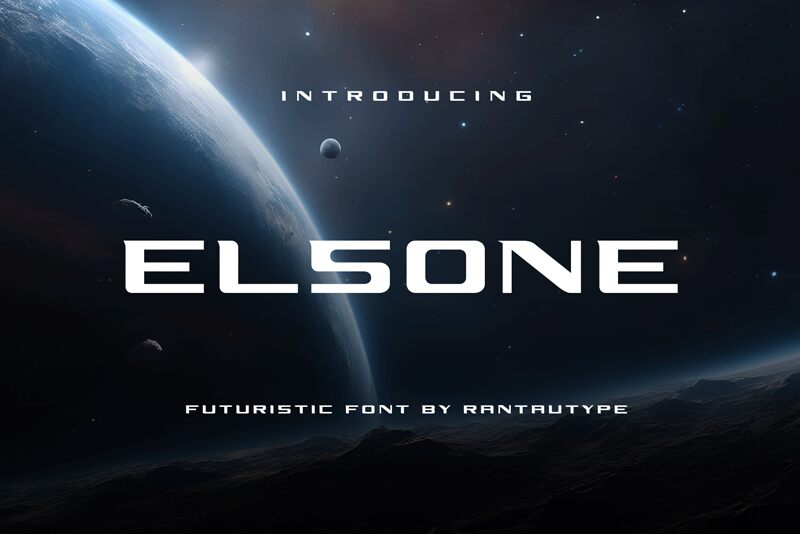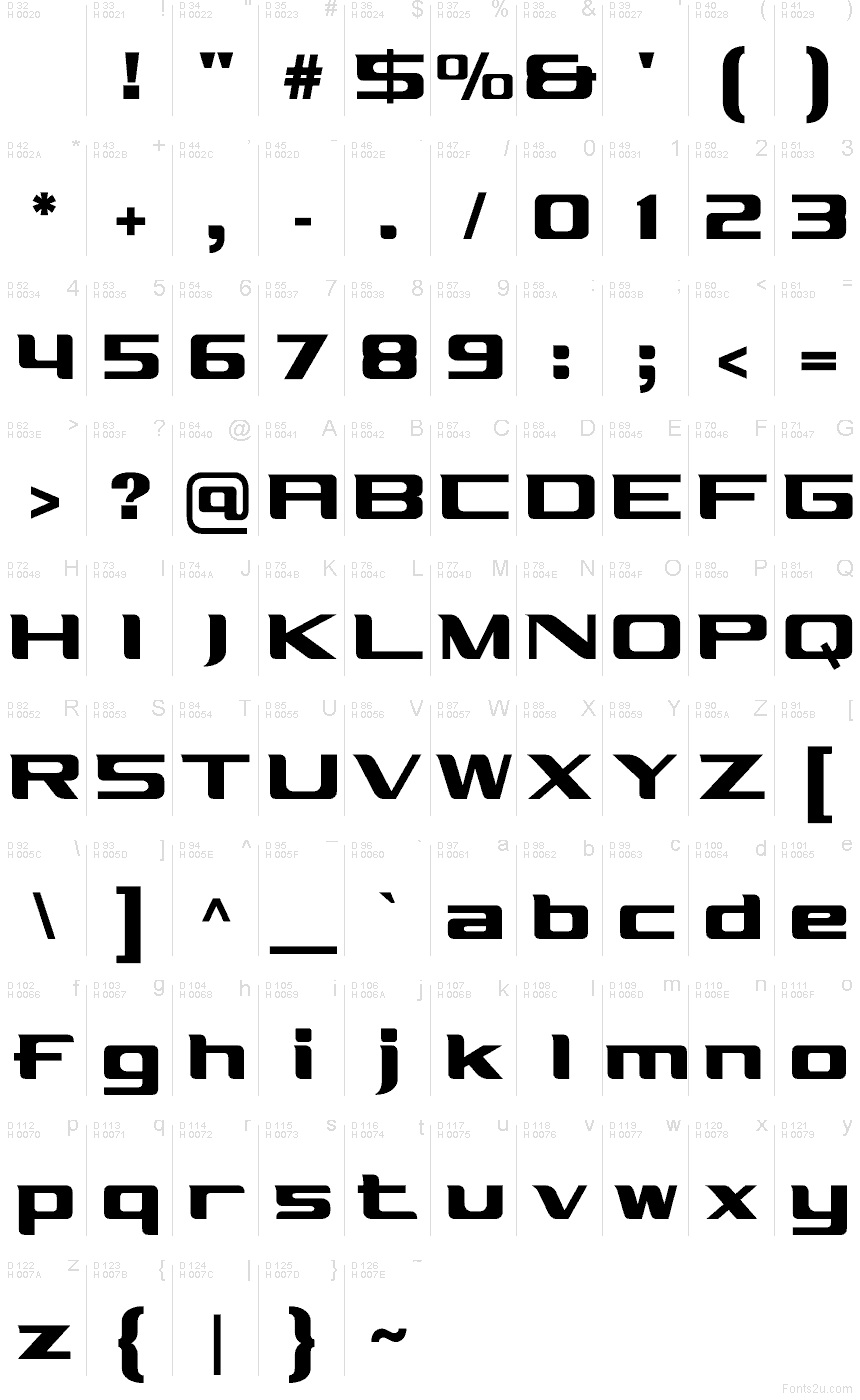
Elsone font by RantautypeStudio is a free futuristic display typeface with a bold, monolithic presence. Its wide, squared forms are sliced by sharp inner cuts, creating a cool tension between heavy, blocky weight and quick, digital-looking gaps. The result feels like lettering stamped onto a spaceship hull-solid, angular, and unmistakably tech-driven, yet still readable at a glance.
Using Elsone, this free font, you can give instant sci-fi attitude to gaming logos, esports team graphics, tech event posters, streaming overlays, UI headers, and futuristic album covers. It shines on large titles where the chunky letterforms can breathe, and pairs smoothly with a clean geometric sans in smaller supporting text.